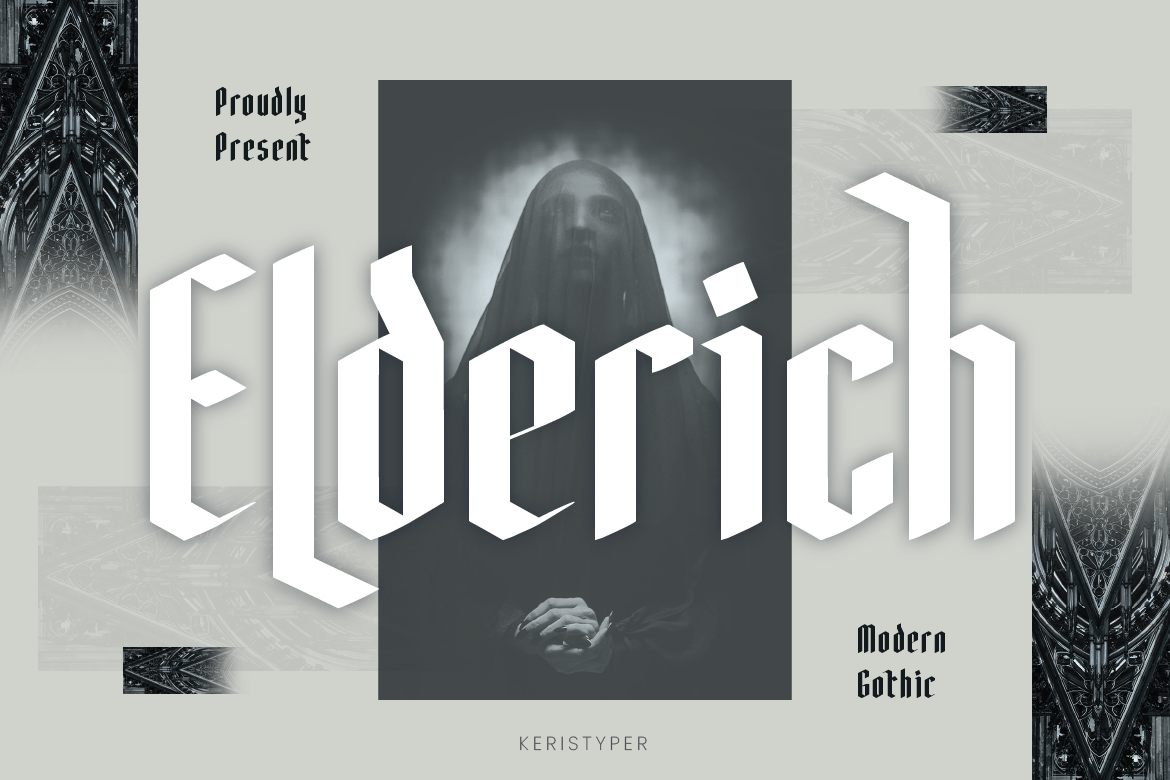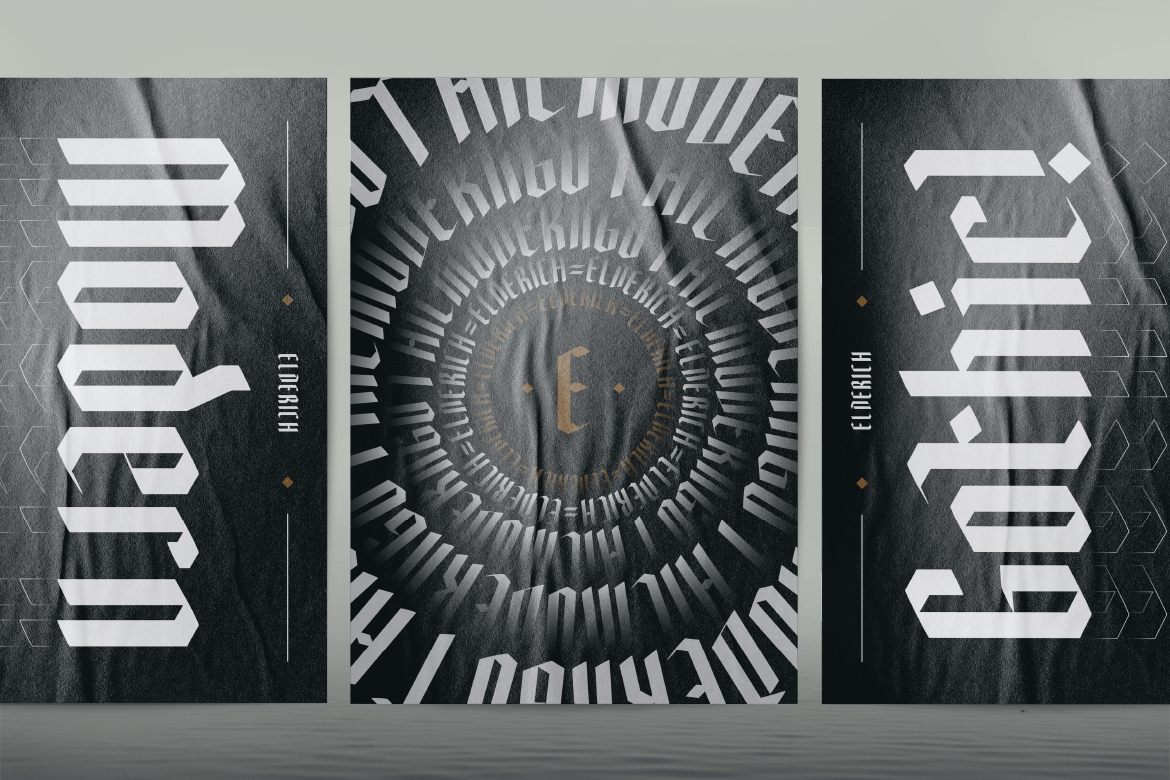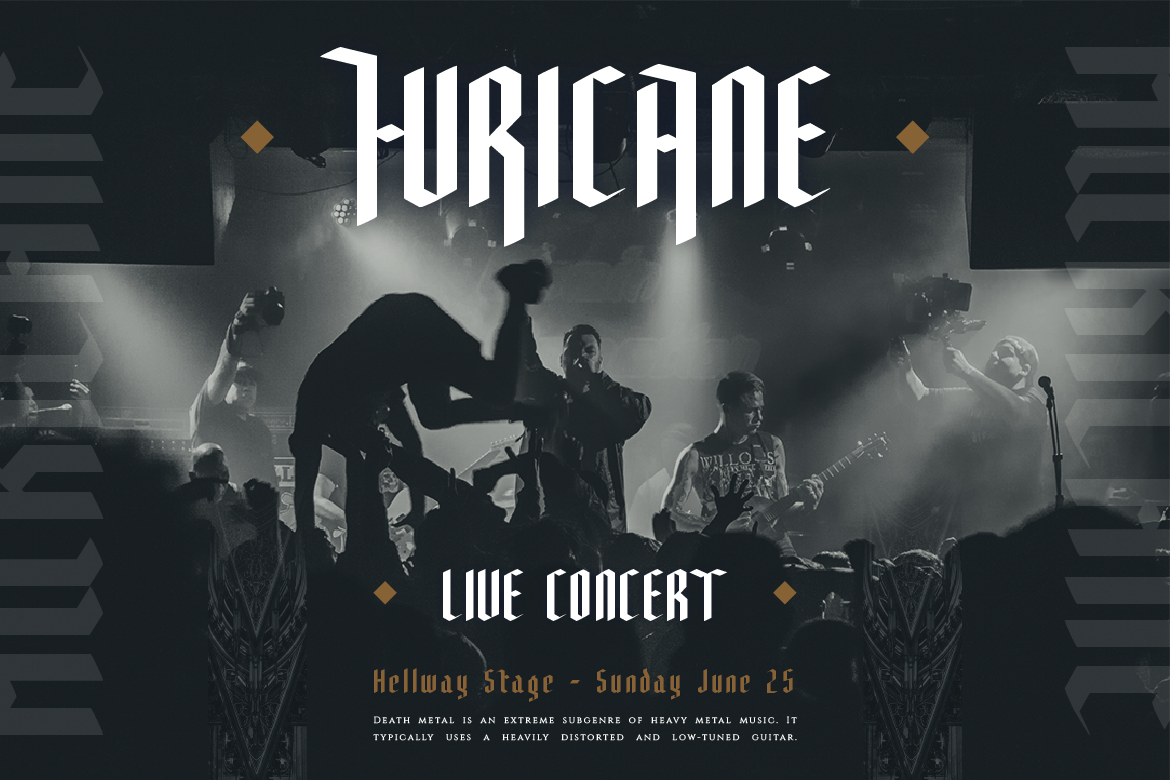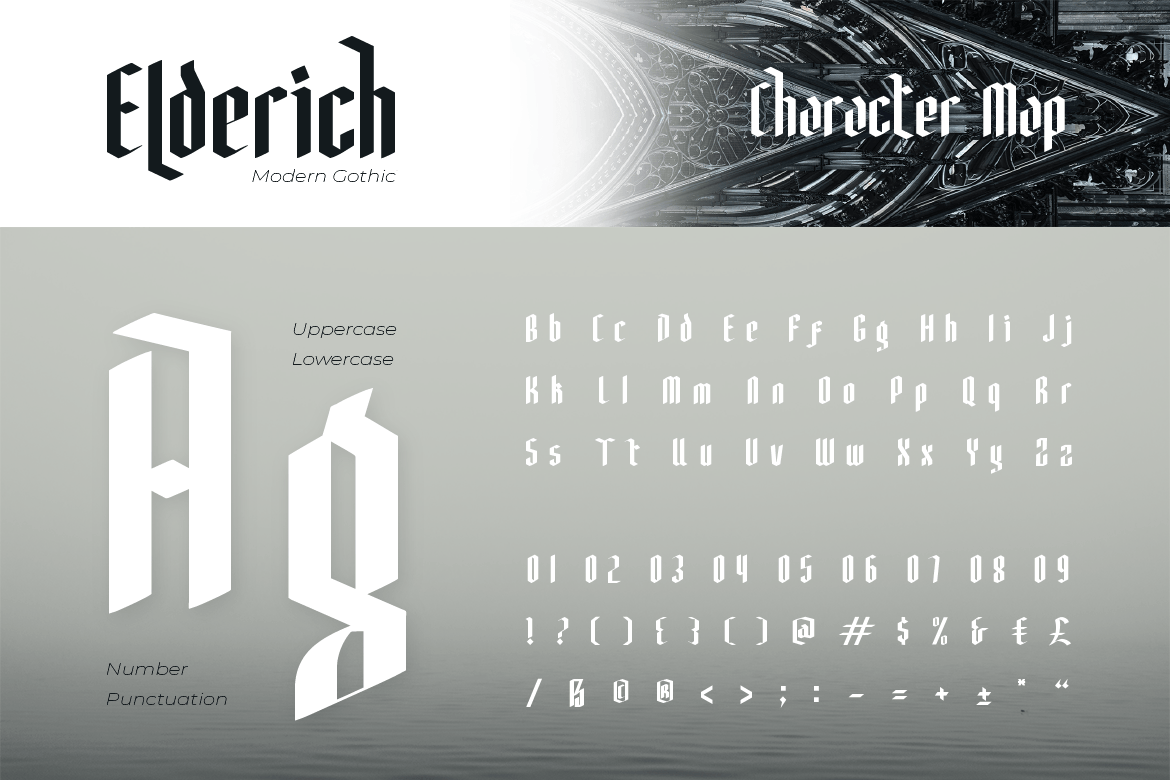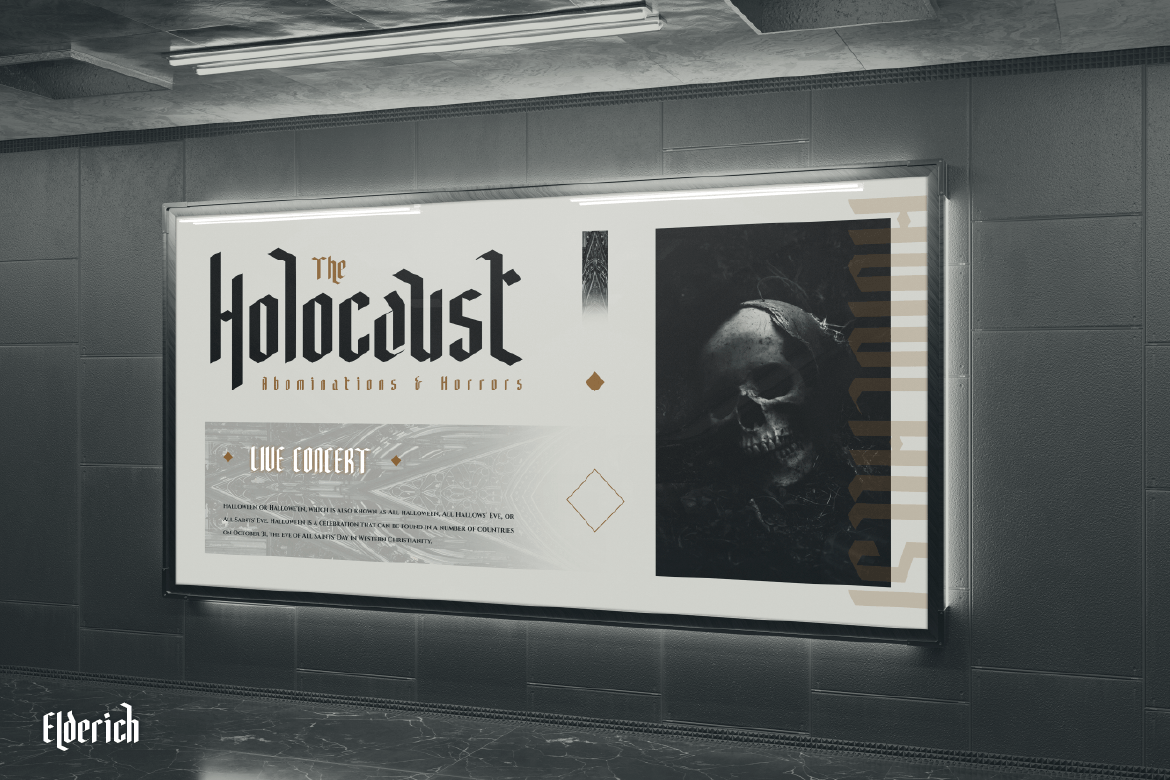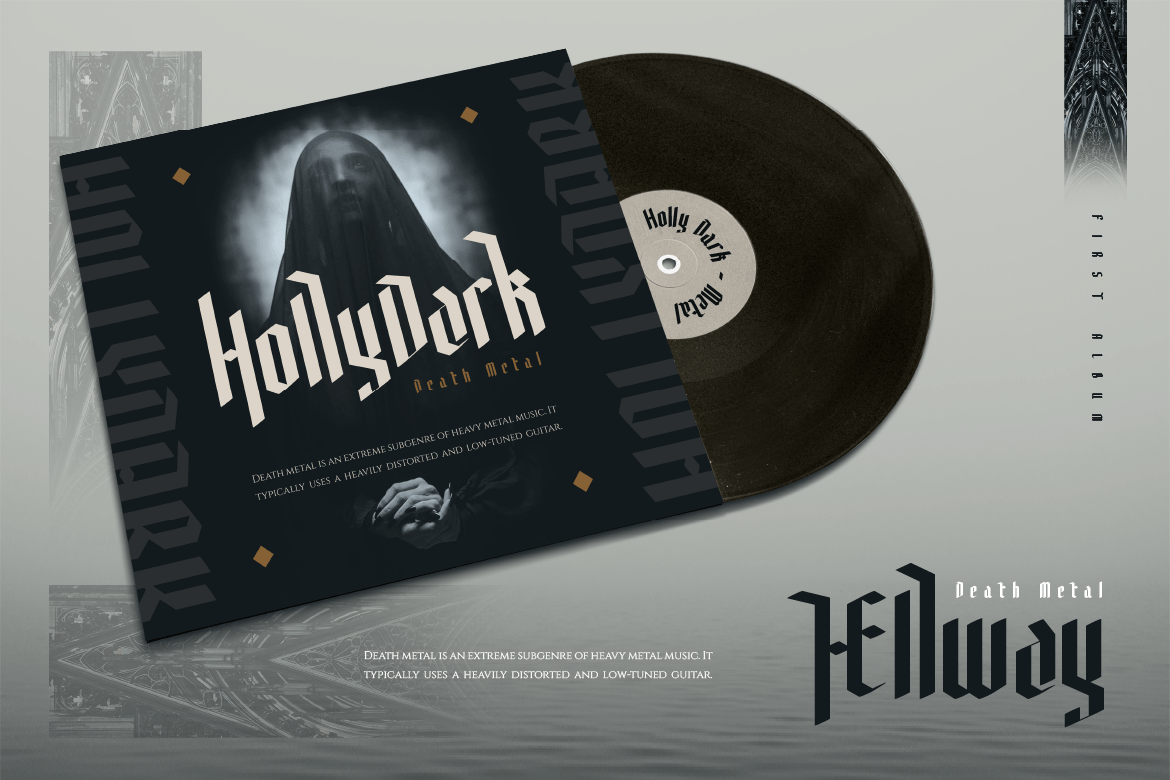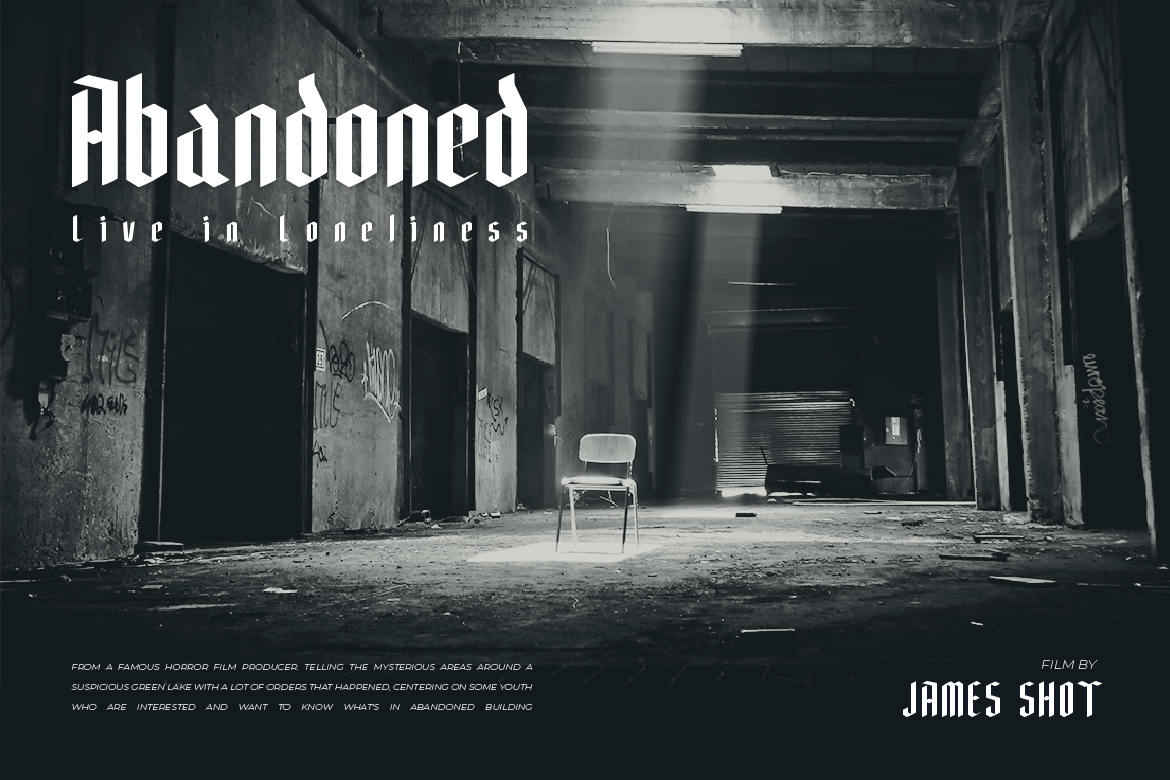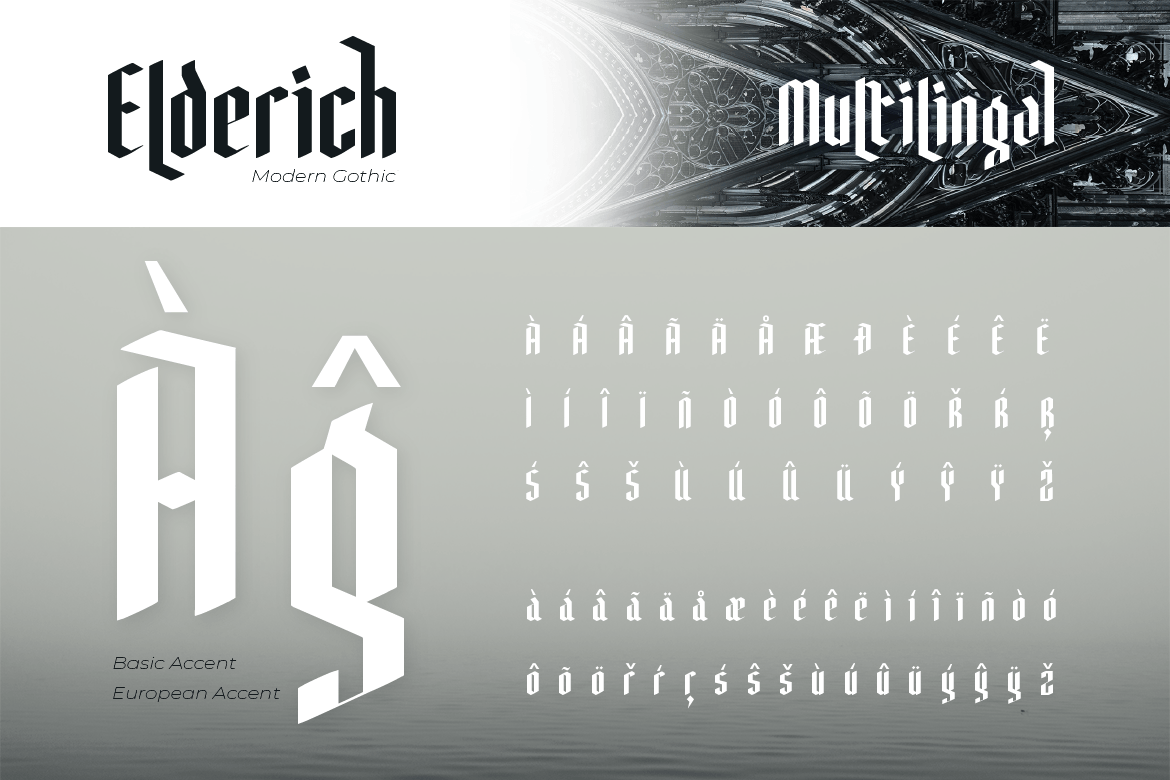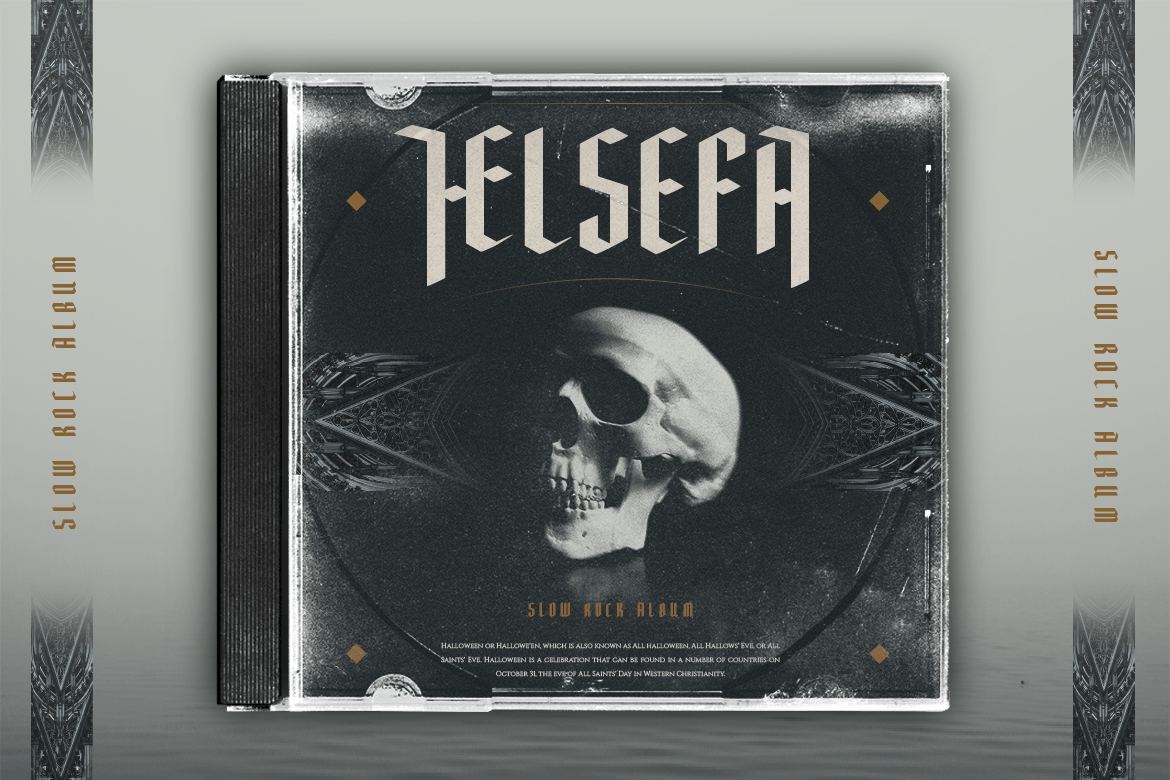
Elderich Font
Introducing Elderich is a modern gothic typeface. Strong and geometric with a fraktur style inspired by the blackletter concept. This font is good for logo design, Social media, Movie Titles, Books Titles, short text even long text letters, and good for your secondary text font with script, sans, or serif.
- Standard Uppercase & Lowercase
- Multilingual : ä ö ü Ä Ö Ü ß ¿ ¡
- Alternate & Ligature